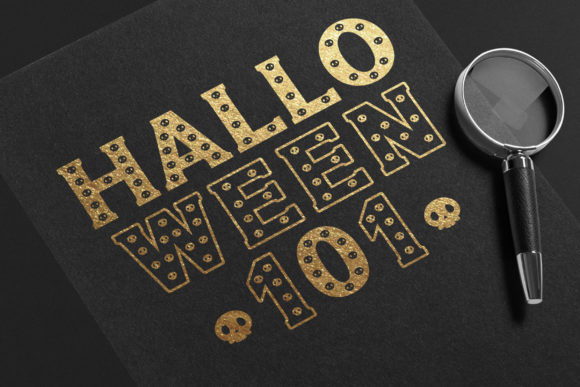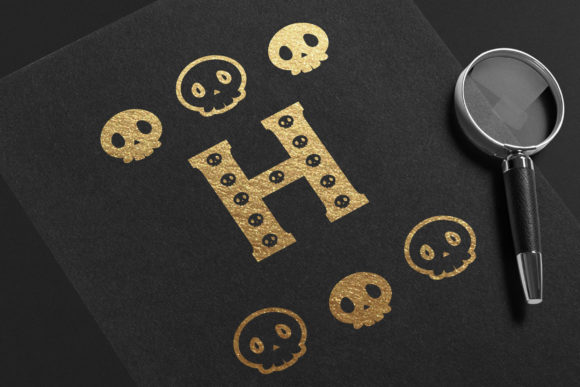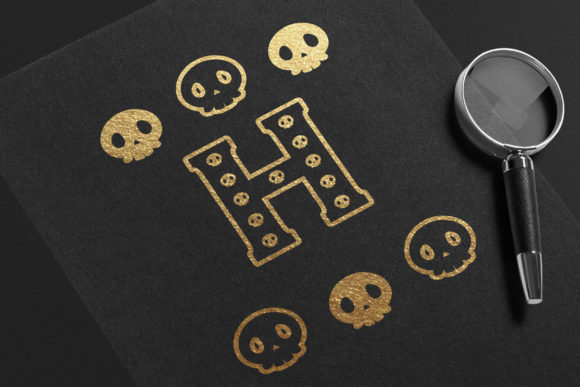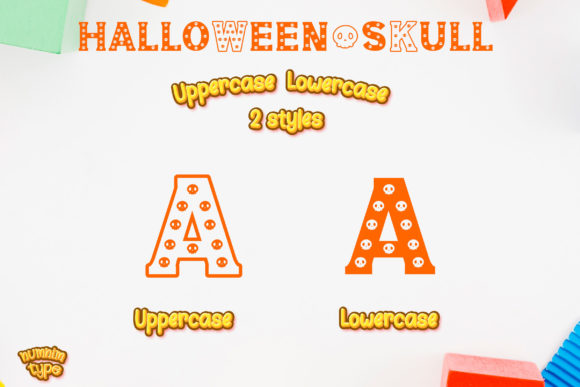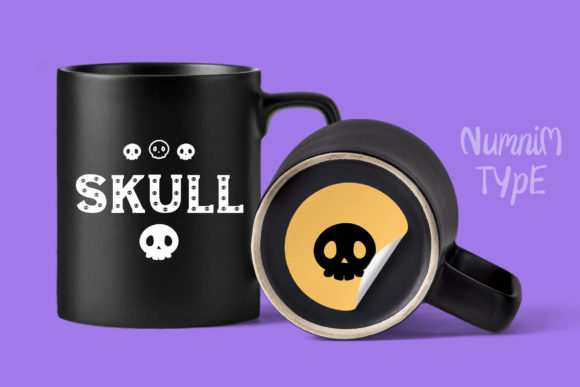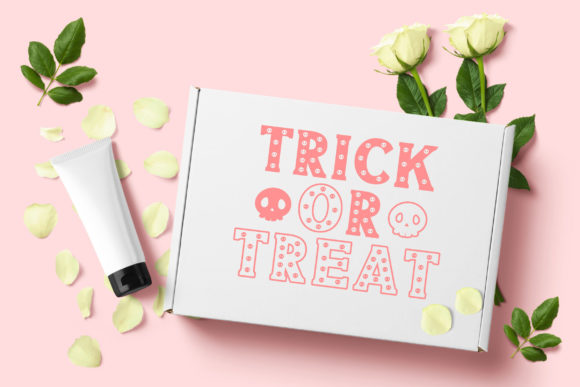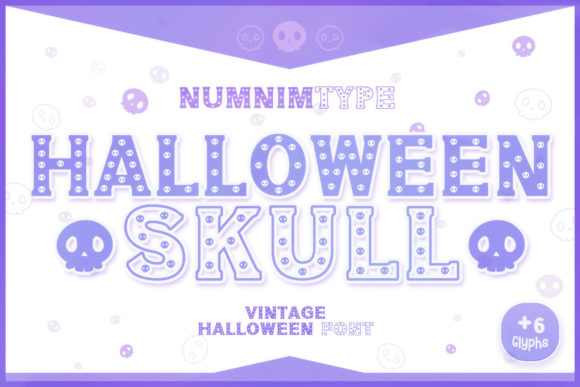
Unleash the Spooky Spirit with Halloween Skull Font
As the spookiest time of the year approaches, designers and crafters are on the lookout for the perfect fonts to add a touch of eeriness to their October designs and Halloween parties. If you’re looking for a font that screams Halloween, look no further than the Halloween Skull Font. This cool and uniquely designed decorative font is sure to elevate your designs and leave a lasting impression on your audience.
What is Halloween Skull Font?
Halloween Skull Font is a specially designed font that features intricate skull designs, perfect for adding a spooky touch to your designs. The font is carefully crafted to resemble the eerie and mysterious vibe of Halloween, making it an ideal choice for designers and crafters who want to create eye-catching and festive designs.
Why Use Halloween Skull Font?
There are many reasons why Halloween Skull Font is a must-have for designers and crafters. Here are just a few:
- Unique Design: The Halloween Skull Font features a unique and intricate design that is sure to stand out from the crowd. The font’s skull designs are carefully crafted to add a touch of eeriness to your designs.
- Perfect for Halloween: As the name suggests, Halloween Skull Font is specifically designed for Halloween. The font’s spooky vibe makes it perfect for creating designs for Halloween parties, invitations, and decorations.
- Versatile: The Halloween Skull Font can be used for a variety of design projects, including posters, invitations, decorations, and more.
Design Ideas Using Halloween Skull Font
The Halloween Skull Font is a versatile font that can be used for a variety of design projects. Here are a few ideas to get you started:
- Halloween Invitations: Create spooky invitations for your Halloween party using the Halloween Skull Font.
- Posters and Flyers: Design eye-catching posters and flyers for your Halloween party or event.
- Decorations: Use the Halloween Skull Font to create spooky decorations, such as banners and garlands.
- Social Media Graphics: Create spooky social media graphics to promote your Halloween event or party.
Here are a few tips and tricks to help you get the most out of the Halloween Skull Font:
- Experiment with Colors: Experiment with different colors to add an extra touch of eeriness to your designs.
- Combine with Other Fonts: Combine the Halloween Skull Font with other fonts to create a unique and eye-catching design.
- Use in Combination with Images: Use the Halloween Skull Font in combination with images, such as skulls, bats, and spiders, to create a spooky design.